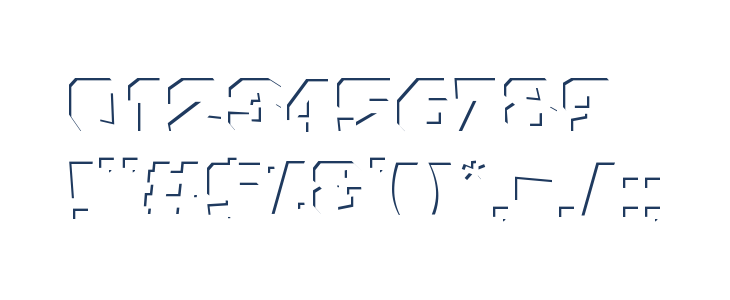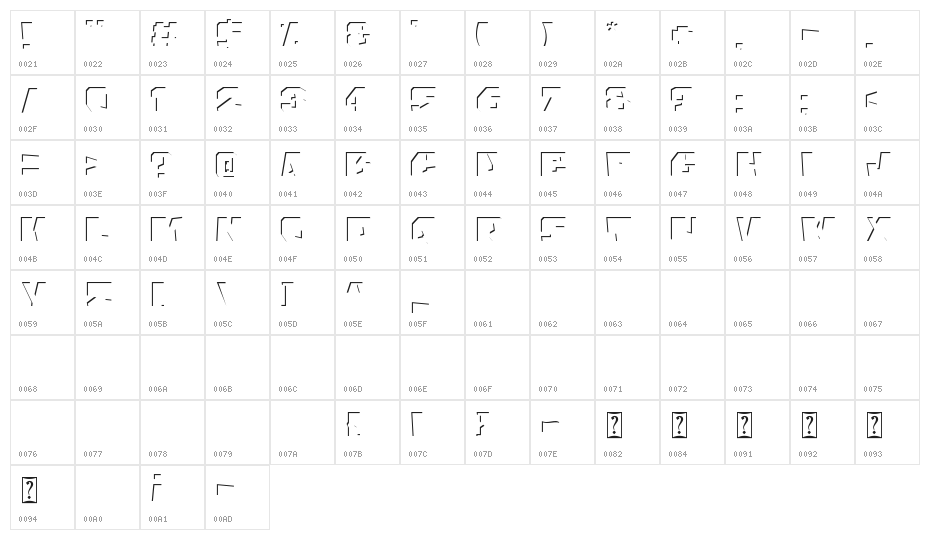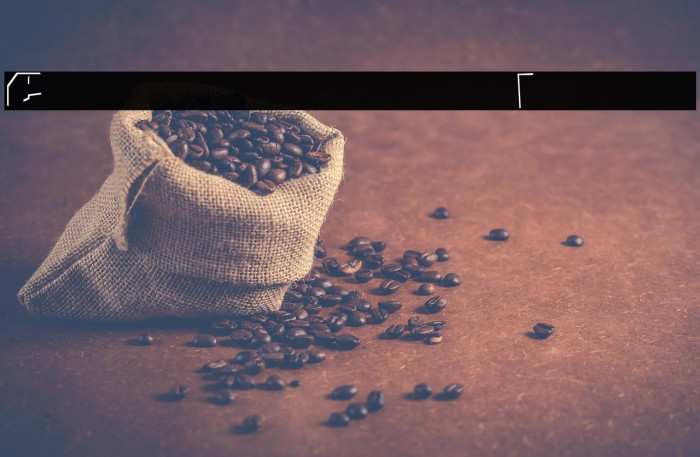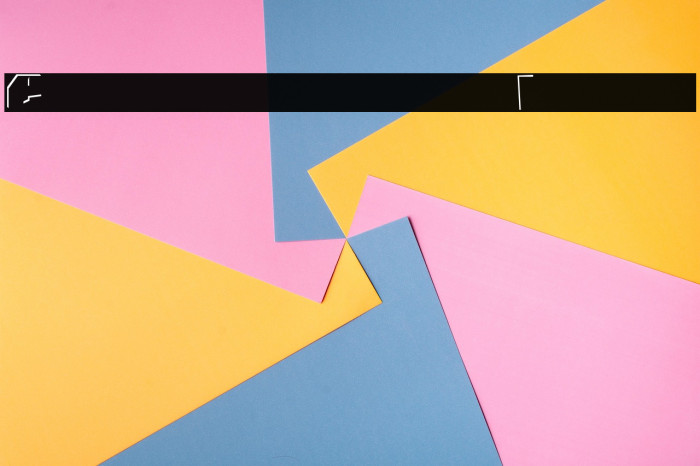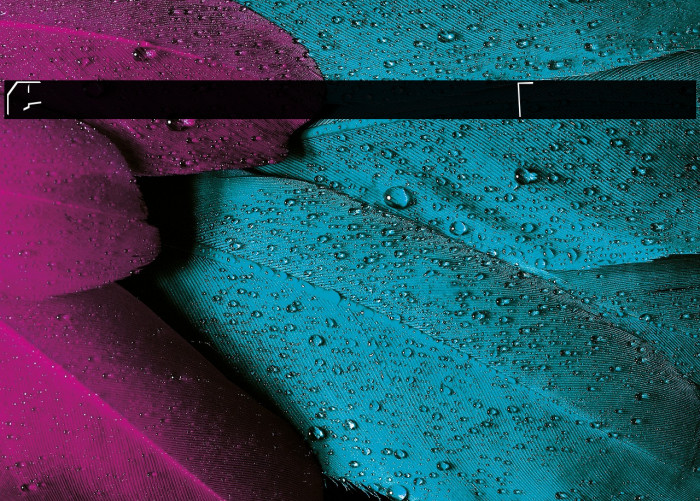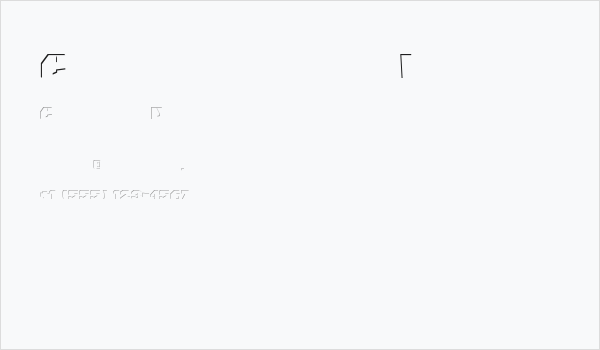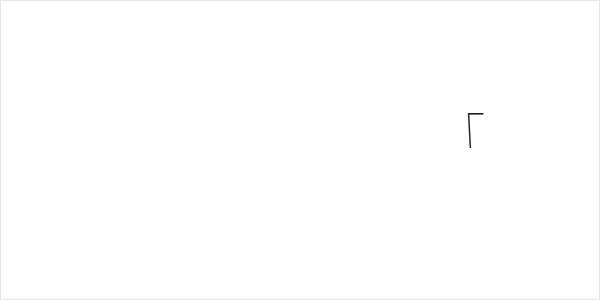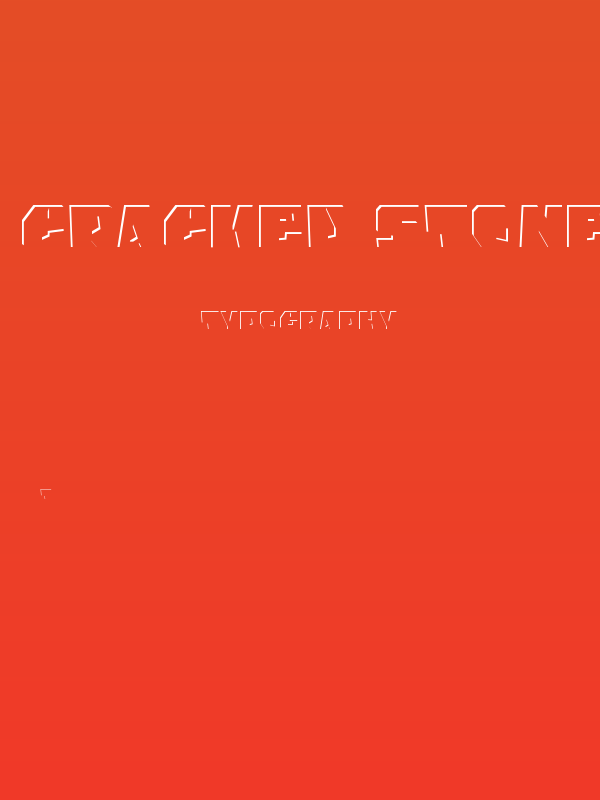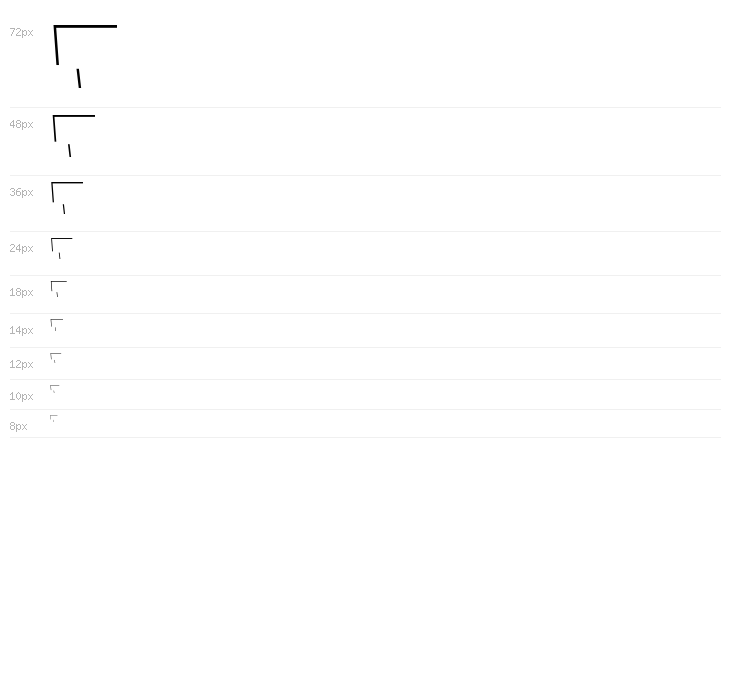
Cracked stone Inner Font
Cracked stone Inner Description
This font features a unique, fragmented design that mimics the appearance of cracked stone. Each character is composed of angular, jagged lines that create a rugged and distressed look. The uppercase and lowercase letters, as well as numbers and special characters, maintain this consistent style, giving the font a cohesive yet chaotic appearance. The irregular edges and gaps within the characters suggest a sense of erosion or decay, making it ideal for projects that require a raw, edgy aesthetic.
| Proposed Projects | Ideal for use in graphic design projects that require a distressed or industrial look, such as posters, album covers, or video game graphics. |